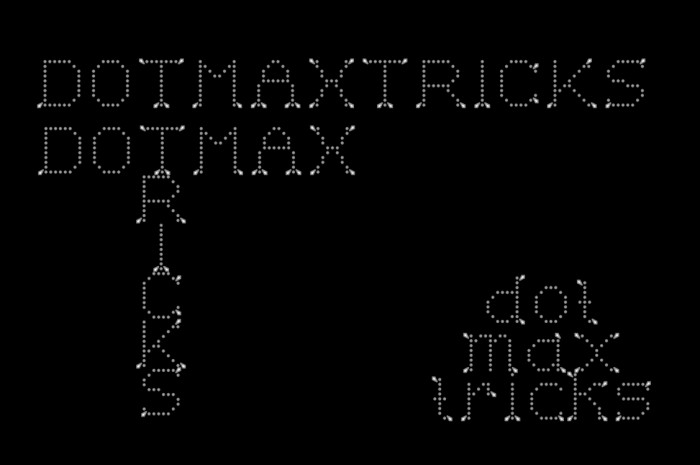
• Very obvious serifs because of the smaller dots.
A metaphysical wondering: “il ne subsiste de ces papillons diaphanes que quelques membres accrochés à la vie”… (The absence of systematism makes the design lighter and more natural, helped with the spacing between the dots.) Funny/simple/interesting composition.
Finished this rectangular fun design. It suits labels, advertising signs, gift wrap, embroidery cards. Print on paper to use as stencil for punching holes into black photo card to make lamp shades. Legible like dot matrix printer output but has added serif decoration.